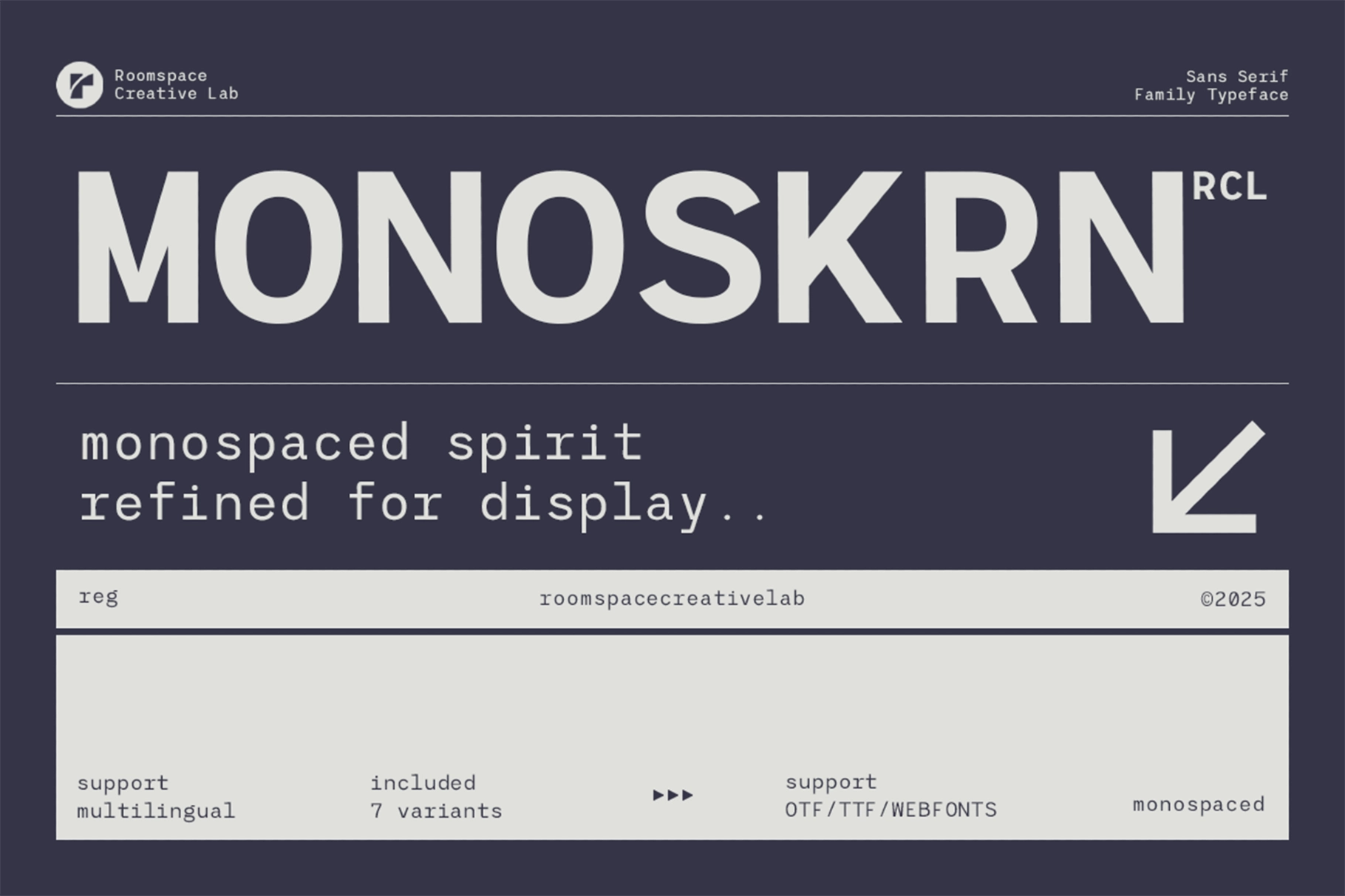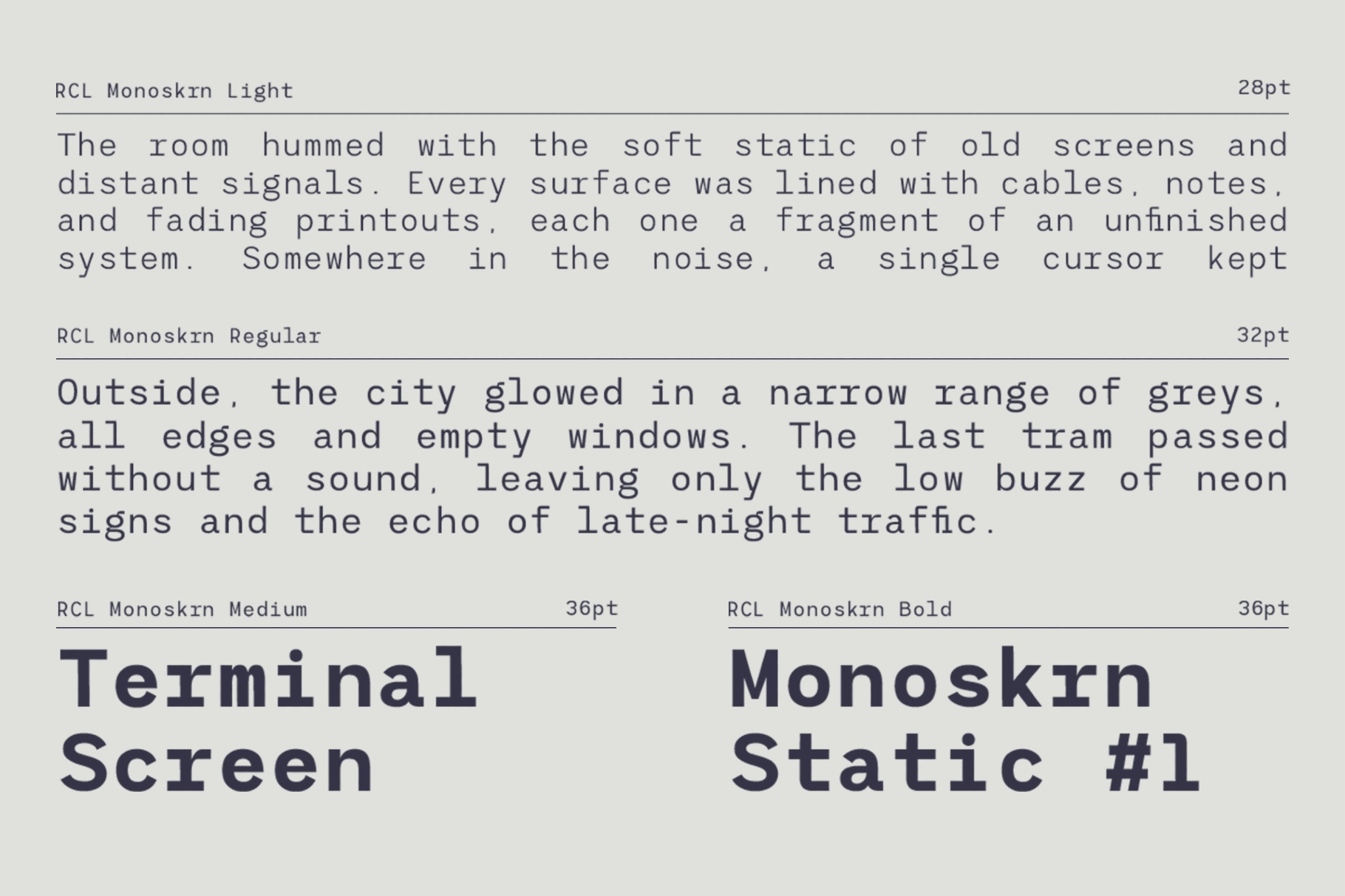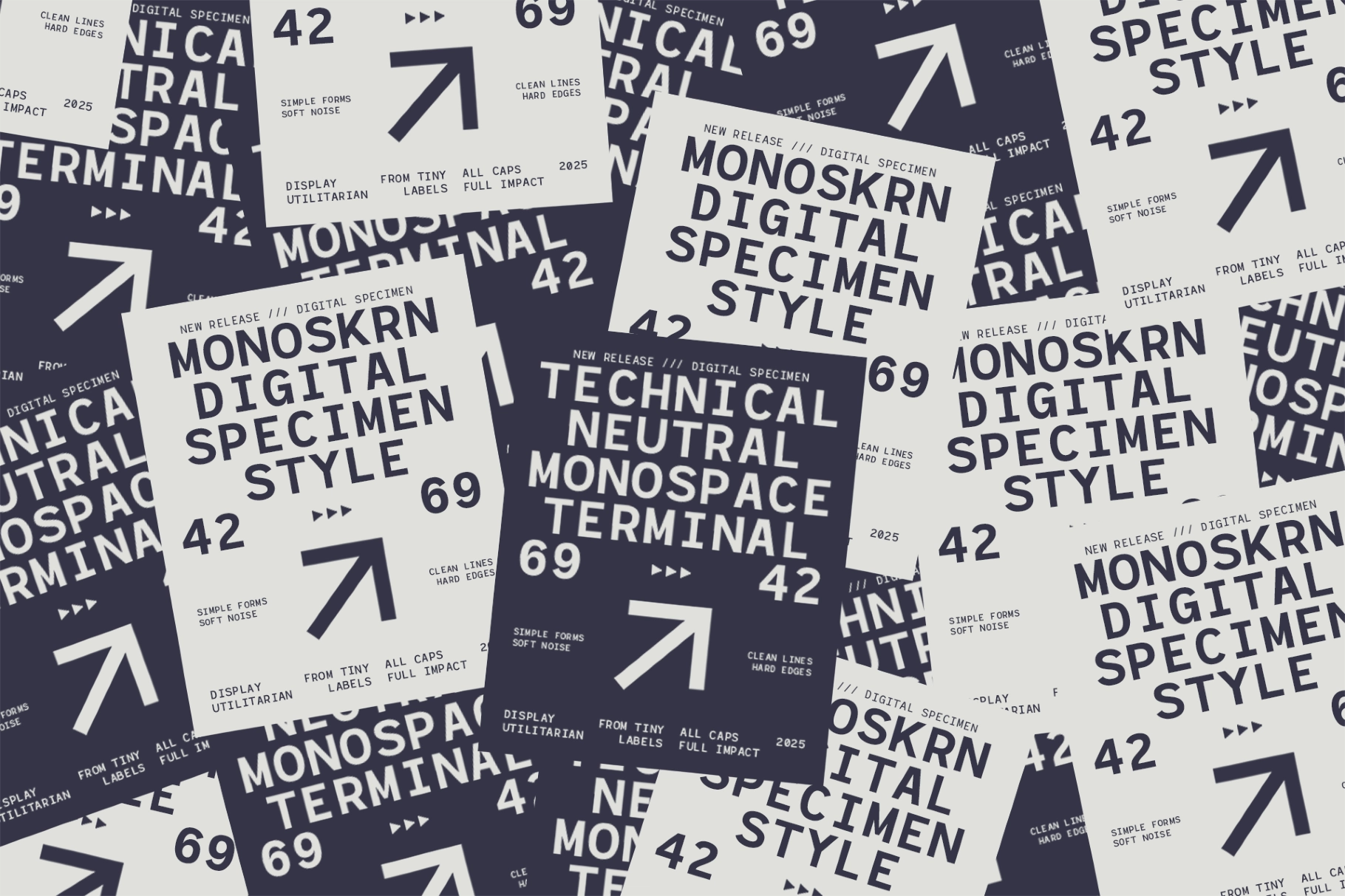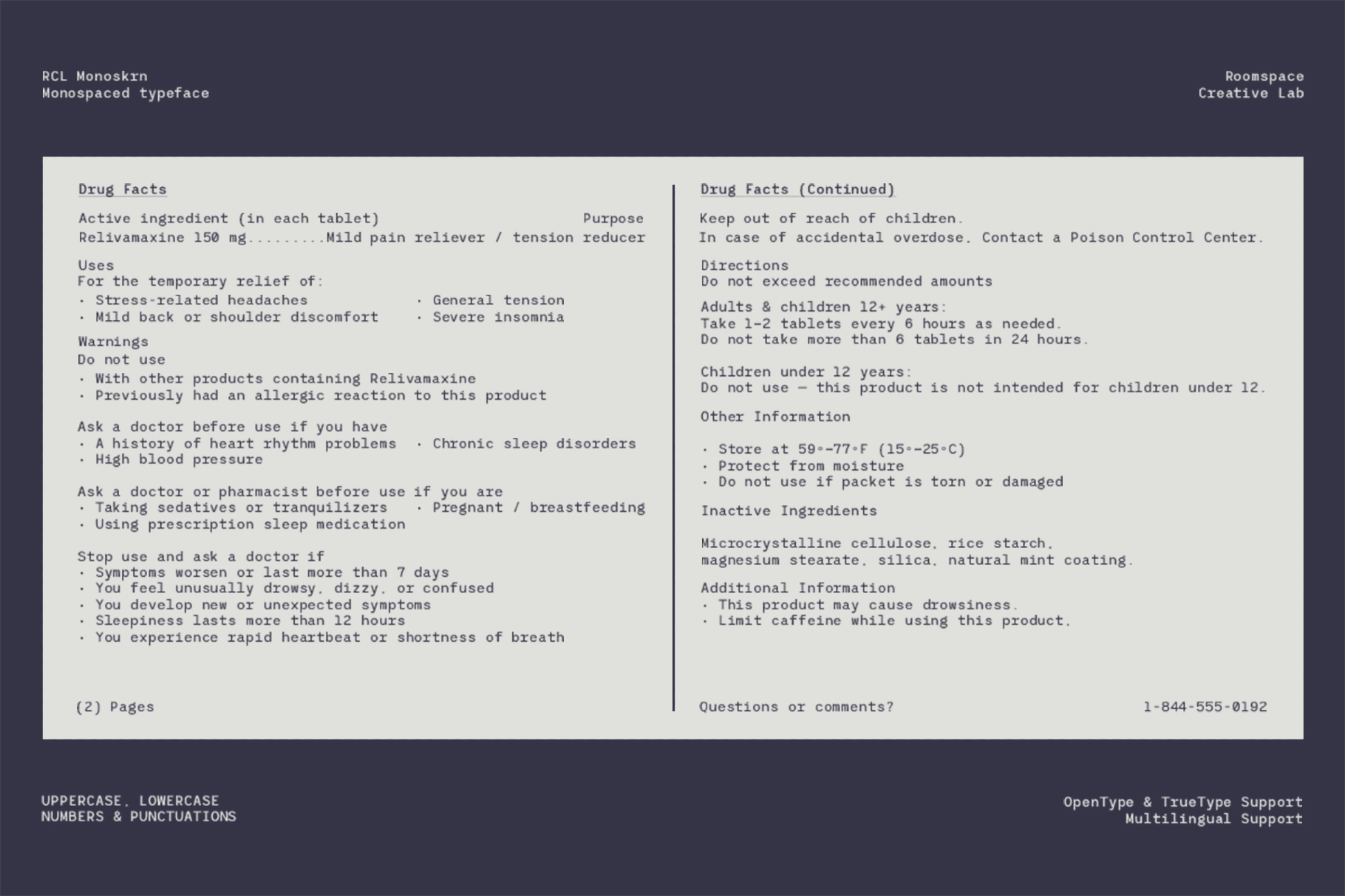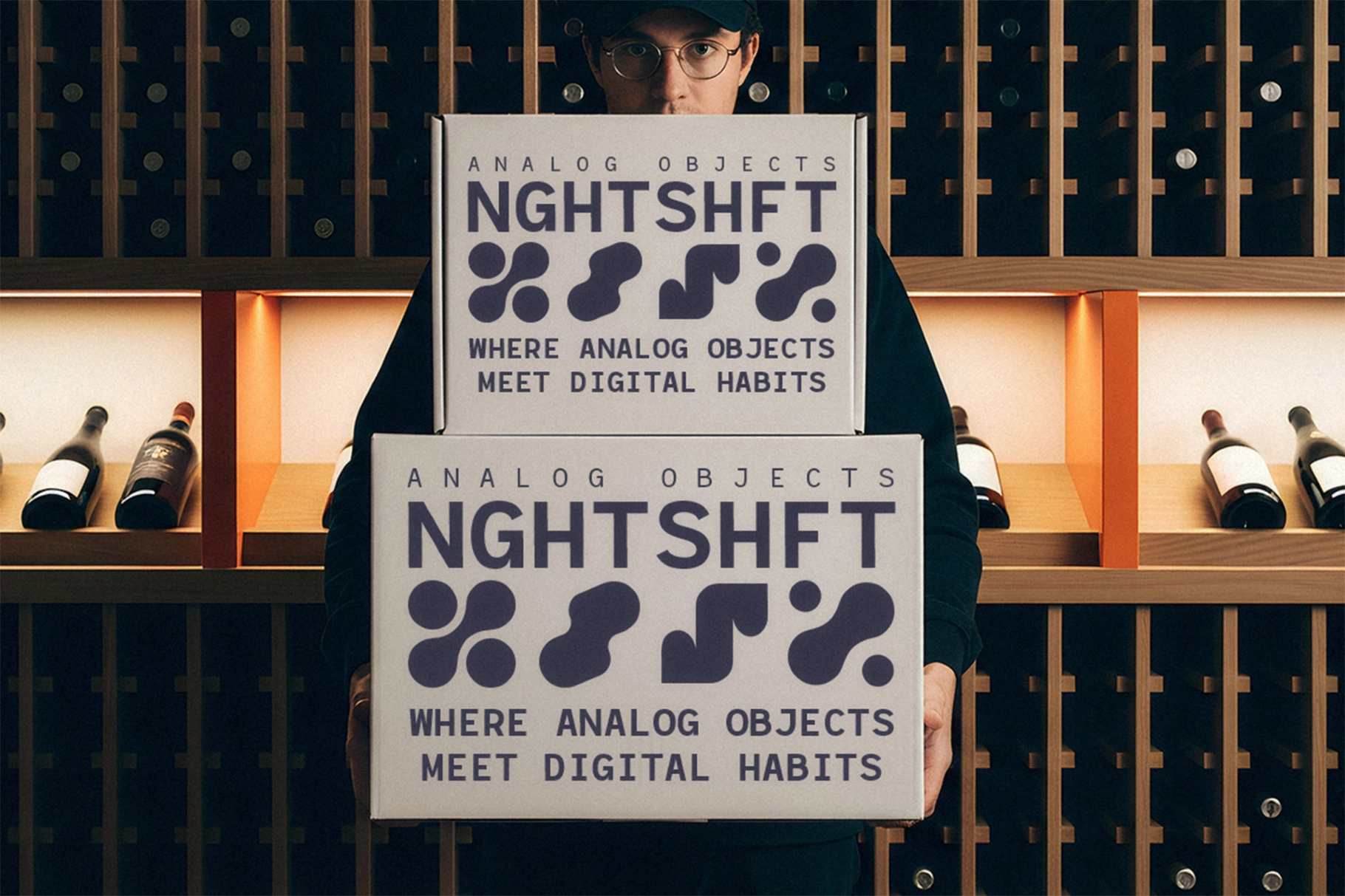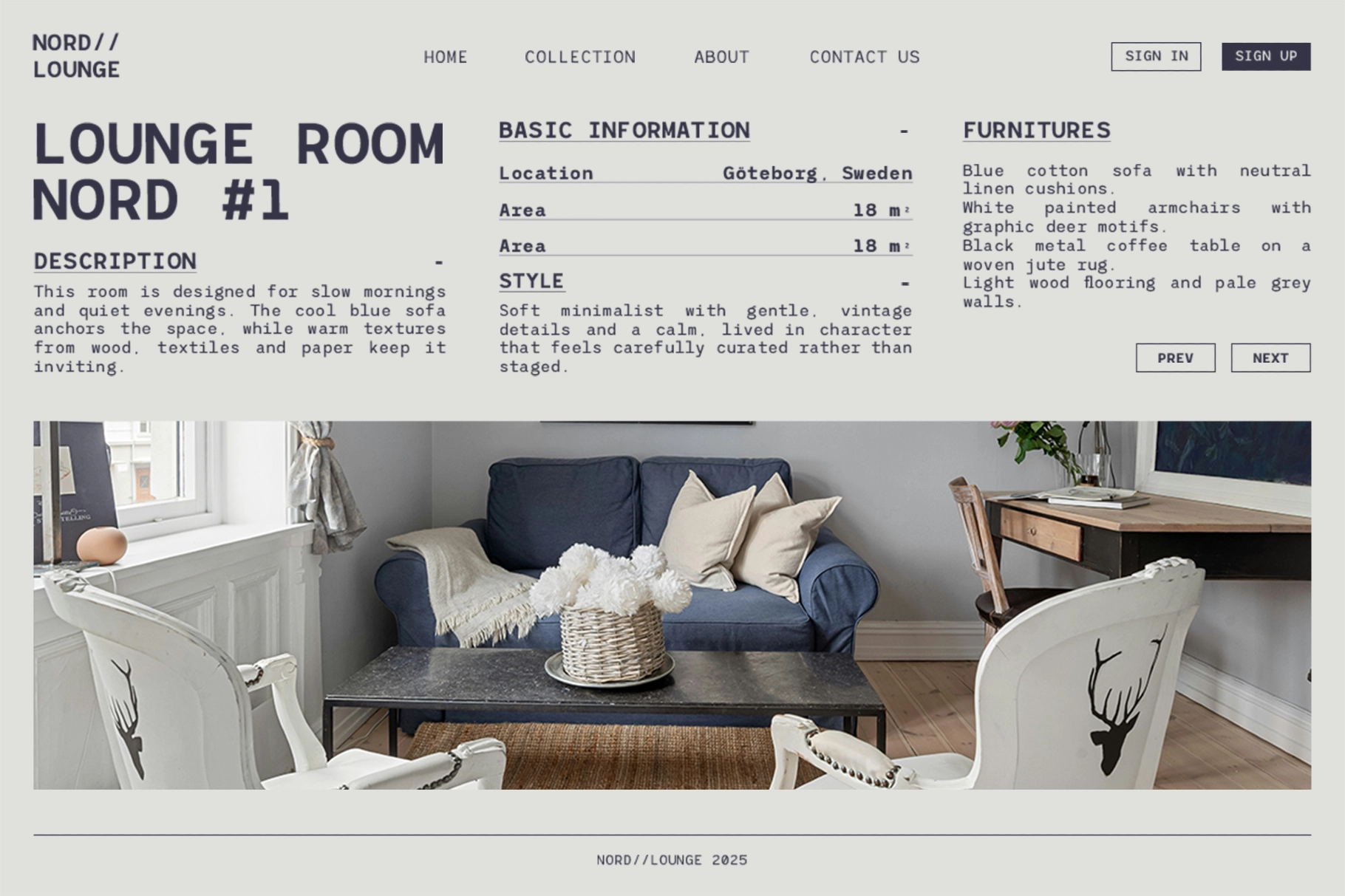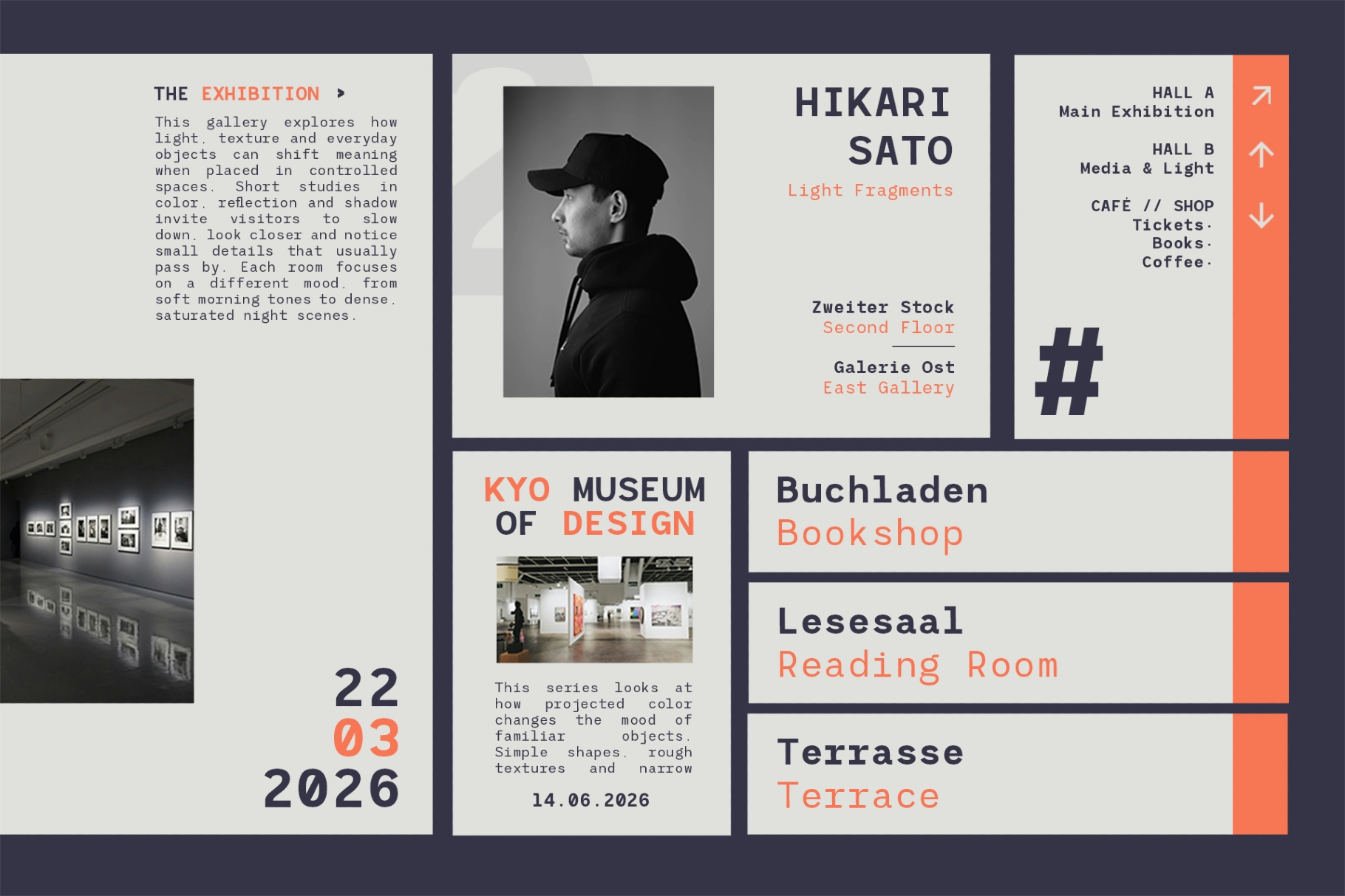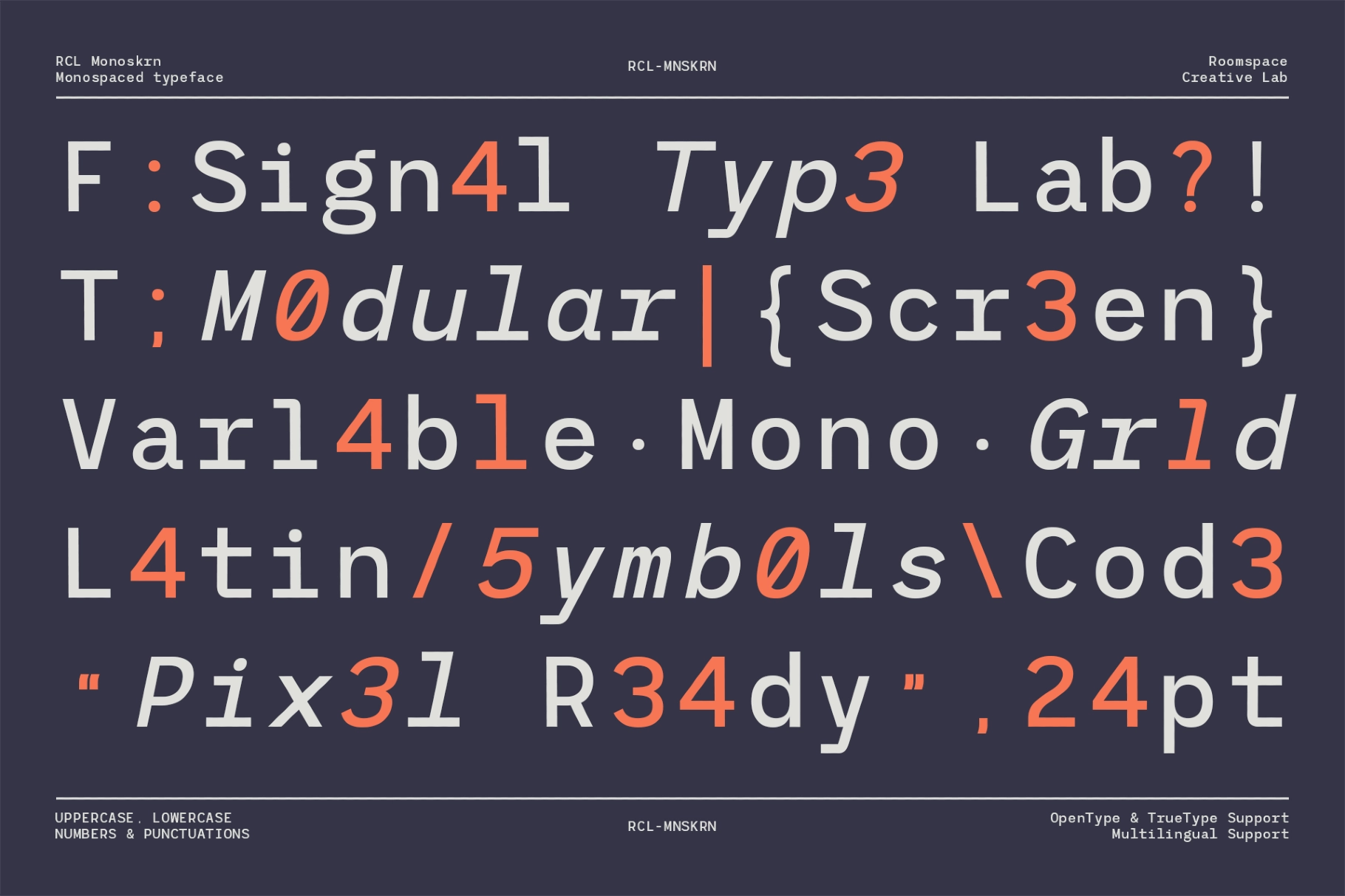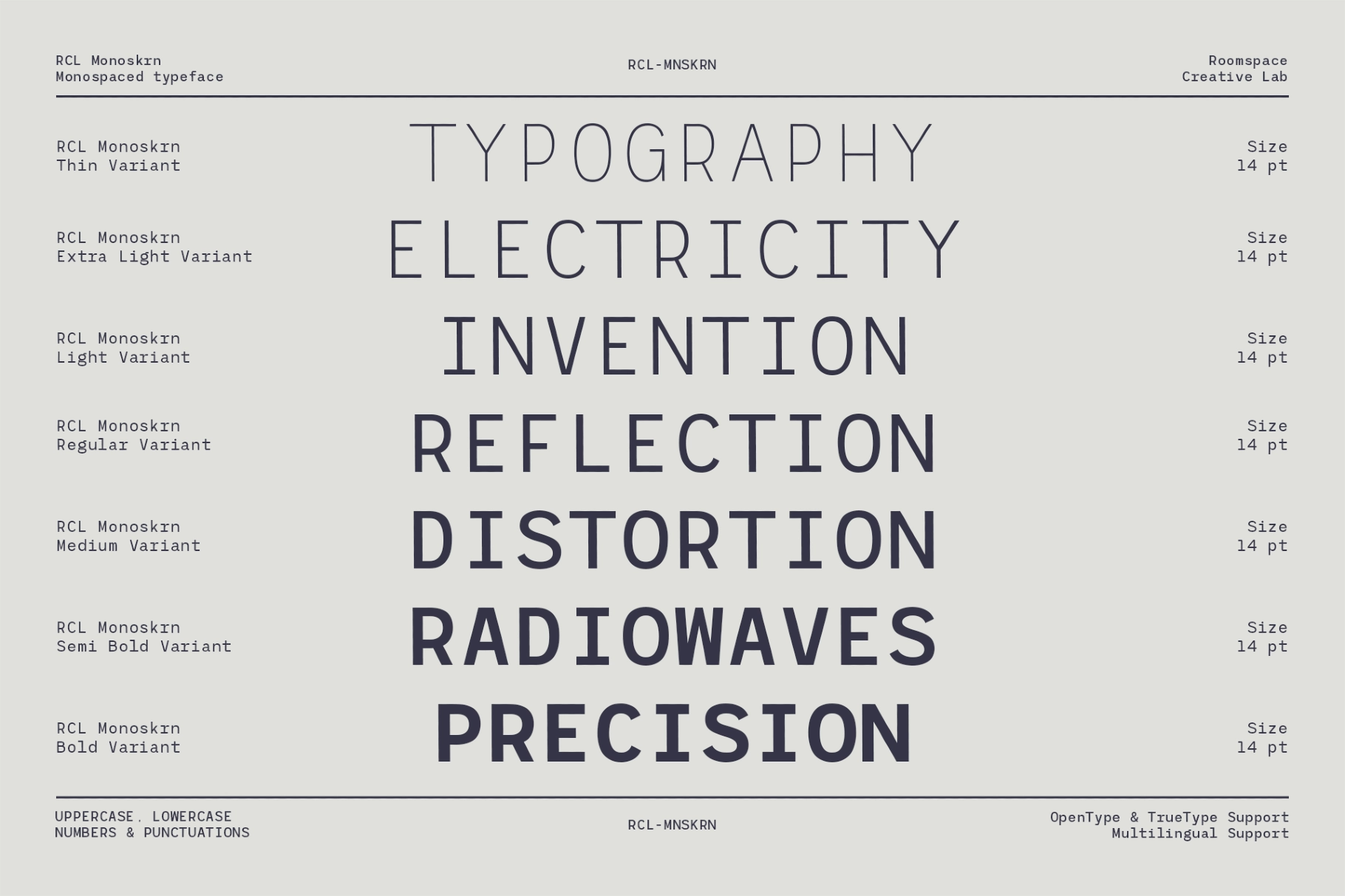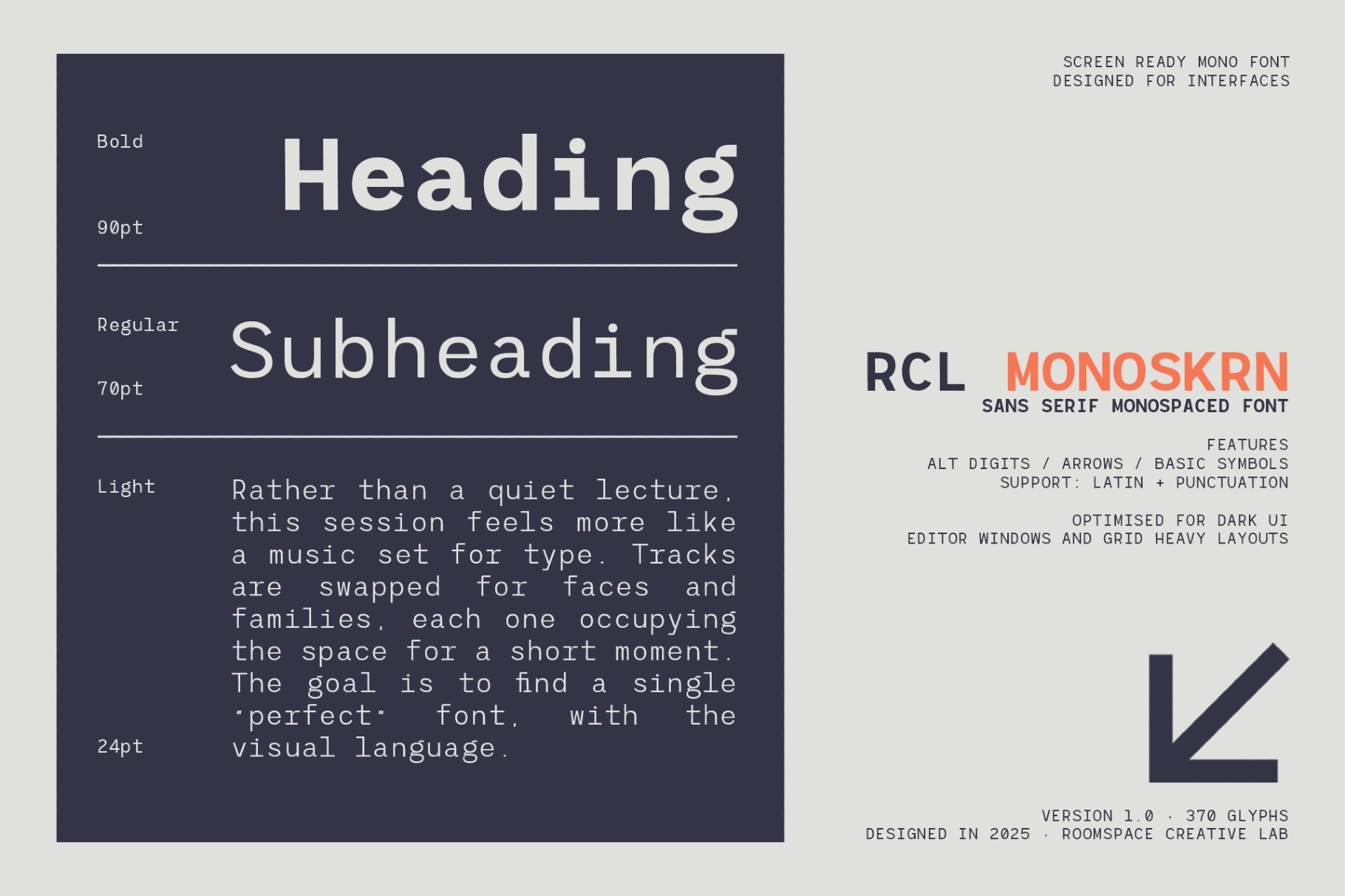
Monoskrn – Modern Monospaced Font
This monospaced sans serif has a clean technical structure, fixed-width rhythm, and a disciplined screen-ready character. Its geometry is direct and orderly, giving interface text, data-heavy layouts, and display typography a precise visual system without looking cold or overworked.
Monoskrn works for tech branding, dashboards, UI systems, product websites, software graphics, code-inspired posters, editorial layouts, data reports, startup identities, app presentations, digital signage, packaging labels, and studio portfolios. It has the calm authority of a terminal window that actually knows what it’s doing.
- 7 Weights: Thin - Bold
- 2 Styles: Regular, Italic
- 370 glyphs